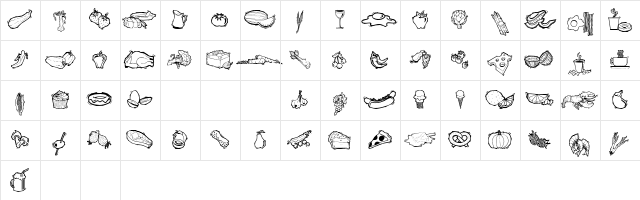
FoodFancyPics Regular Free Font
FoodFancyPics Regular
Design Context for FoodFancyPics
FoodFancyPics is a composed and adaptable typeface that performs quietly and consistently across a wide range of design contexts.